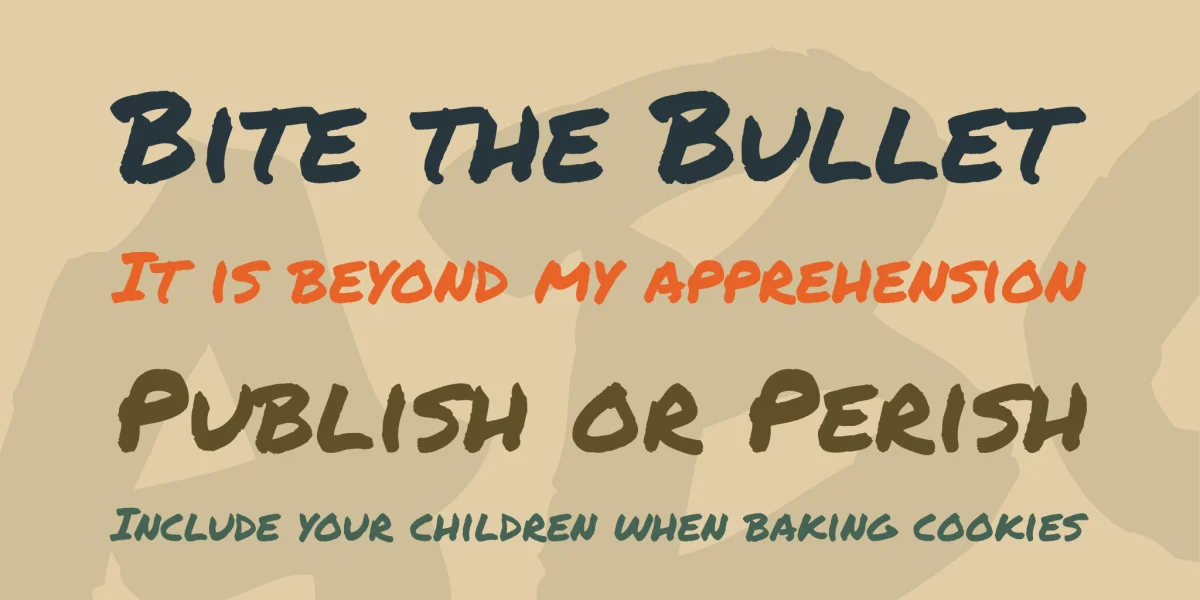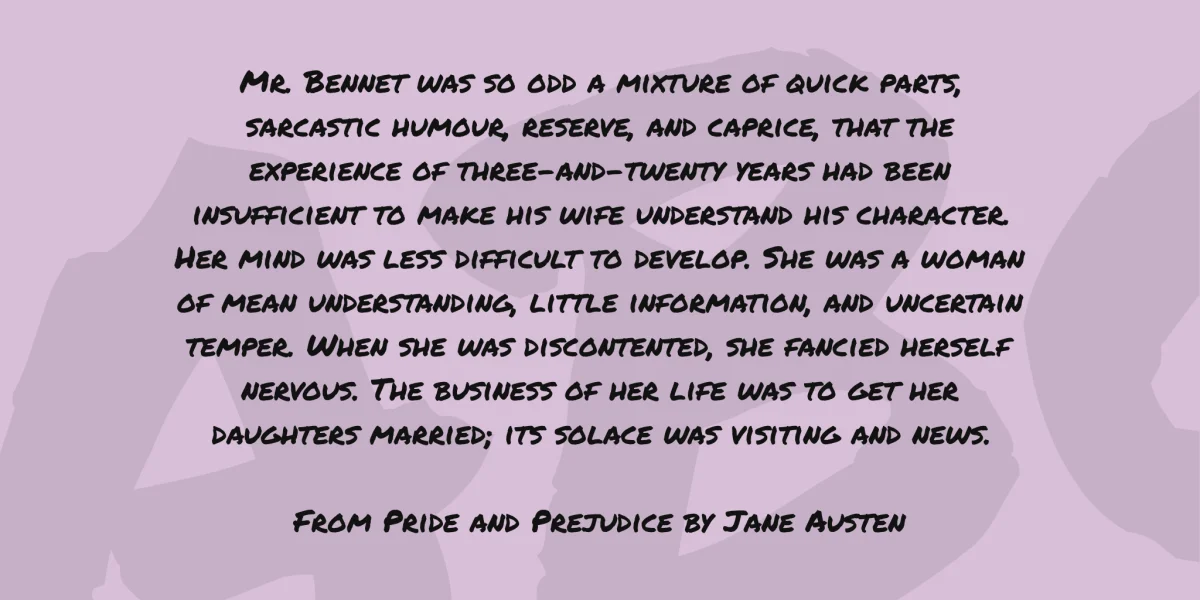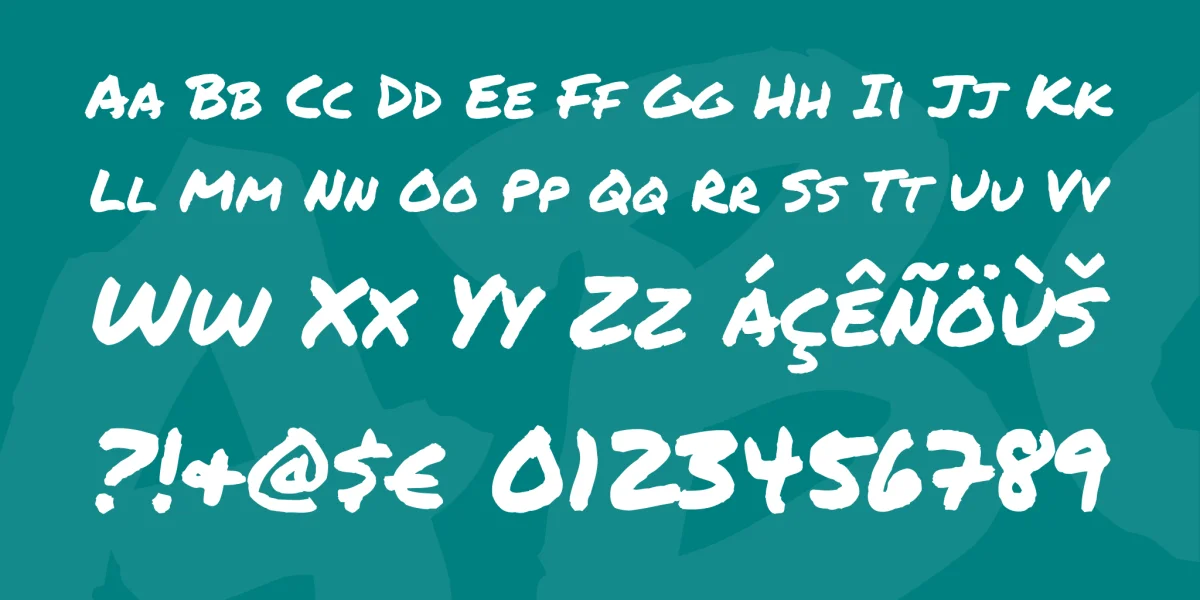
Don't you wish there were some way to capture the essence of permanent marker on your computer without having to ruin a perfectly good monitor every time? Wait no more! We've perfected the look and feel of your favorite writing instrument and you can use it everywhere! Take a deep whiff, that's success you're smelling friend!